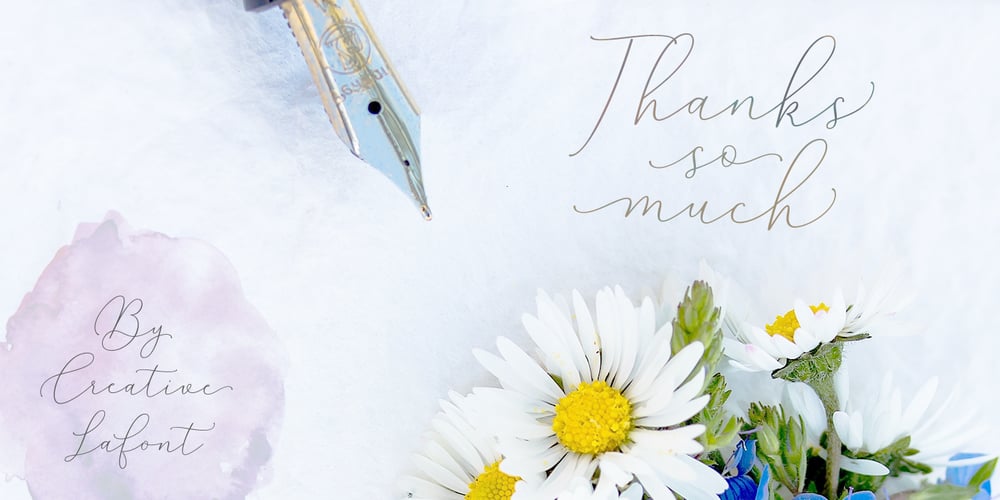
Mindline Script
Mindline Script font
Mindline Script Font Family was designed by Barmawi and published by Creative Lafont. Mindline Script contains 4 styles and family package options. Mindline Script is a unique blend of classic modern calligraphy font with contemporary, sophisticated accents. It is perfect for wedding, event, invitation, escort card, table number, header menus, display, logos, slider blog, custom address, stamps, packaging, greeting card, etc. Mindline Script comes with a complete set of standard characters, eastern diacritic symbols, consist 505 glyphs in total. The alternative characters were divided into several OpenType features such as Ligature and Stylistic Sets. You can create an attractive message by using the alternate characters in your design. In order to use the beautiful swashes, you need a program that supports OpenType features such as Adobe Illustrator CS, Adobe Photoshop CC, Adobe Indesign and Corel Draw. This font support Latin Pro accent letters of Central Europa, Western (À Â Æ È Ë ã ä æ è…) Thanks and have a wonderful day!